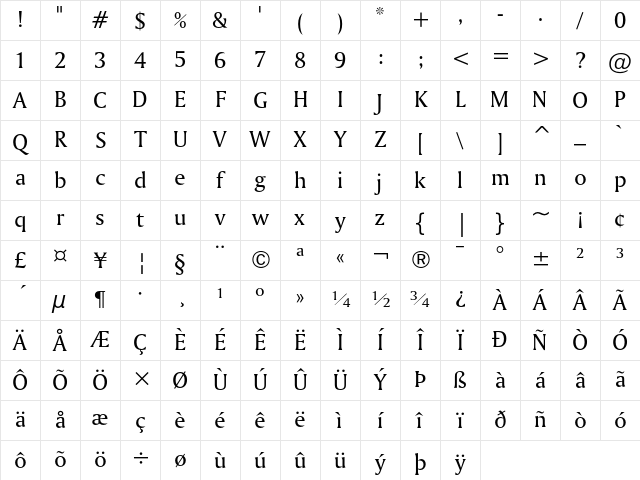
Bitstream Amerigo Regular
Bitstream Amerigo Family
Design Context for Bitstream Amerigo
Bitstream Amerigo is a composed and adaptable typeface that performs quietly and consistently across a wide range of design contexts.
Pro Tip: Use Bitstream Amerigo in both headline and body roles to test its range before committing to a single application.